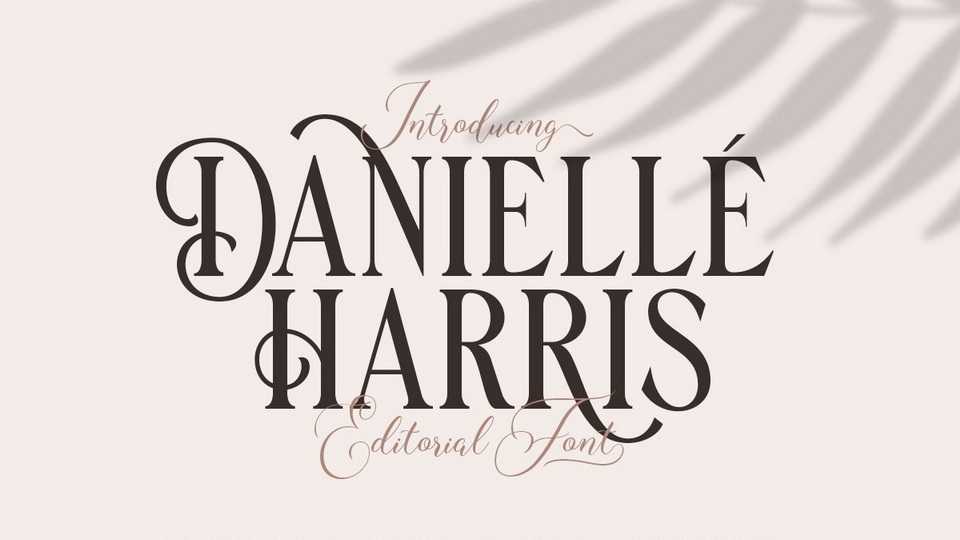
Download Danielle Harris font, an editorial typeface with modern yet classy feel. Danielle Harris works perfect for headline, logotype, apparel, invitation, branding, packaging, advertising etc.